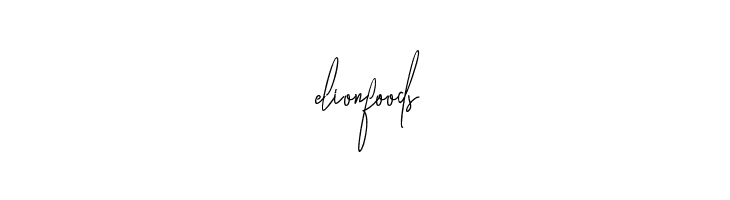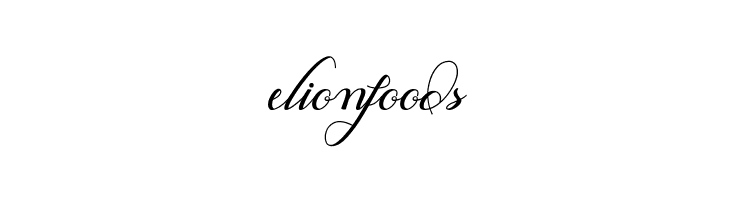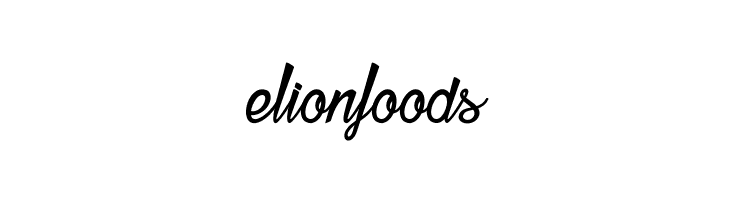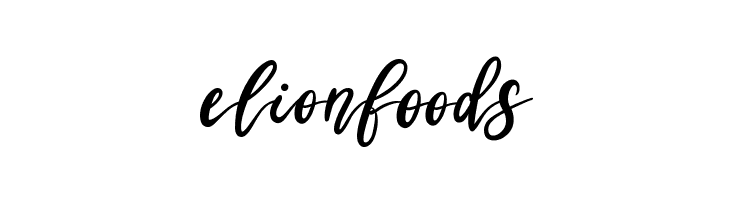
An elegant, flowing script font with intricate loops and swirls.
A dynamic and expressive script font with flowing, cursive letterforms.
An elegant script font with intricate swashes and high contrast strokes.
A bold, decorative script font with intricate detailing and dynamic flow.
An ornate and elegant script font with intricate flourishes.
An ornate and decorative script font with elaborate swirls and flourishes.
An elegant and decorative script font with flowing, ornate letterforms.
An elegant, flowing script font with ornate, cursive letterforms.
A dynamic, hand-drawn script font with bold, sweeping curves and sharp angles.
A bold, brush-style font with expressive, uneven strokes.